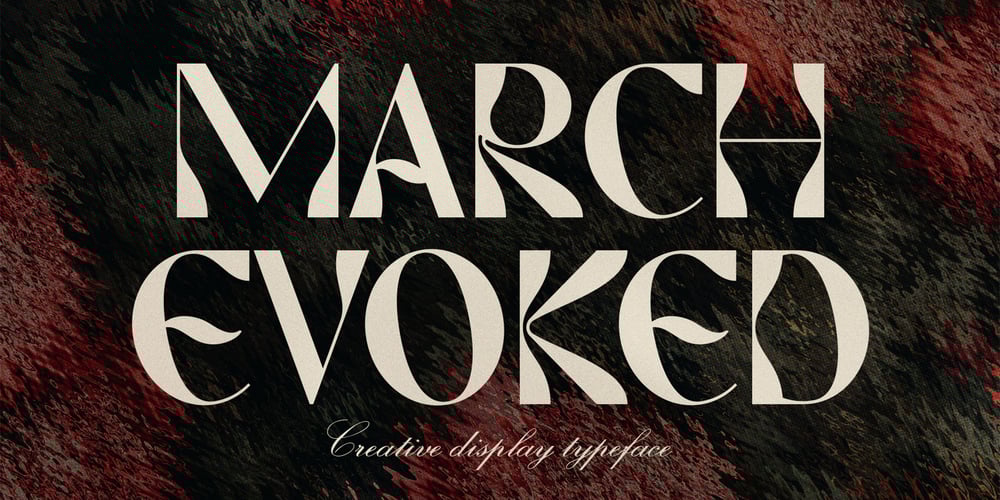
March Evoked
March Evoked font
March Evoked Font Family was designed by SilverStag and published by SilverStag. March Evoked contains 2 styles and family package options. March Evoked is a brand new display font pack that includes regular and outlined version. march Evoked is inspired by an early spring in Spain, with flowers in full bloom all over the capital city – Madrid. With contrast lines & curves it will give your design that chic & modern appeal you are looking for. It is perfect for logos, branding, posters, social media & all other creative projects.I invite you to check out the preview images, and I hope you will be immersed in my vision for this creative typeface that, I am sure, will work for all kinds of interesting projects you might be working on this year.If you end up publishing your designs on Instagram, tag me – https://instagram.com/silverstagco and I will make sure to showcase your design and work to my audience as well!March Evoked – Creaive Display Font Includes: Numerals & punctuation Full language support Would you like to get 5 completely free fonts worth over $75? No tricks, no hidden words, terms or anything. Just subscribe to my newsletter, make sure to check your email to approve the subscription, add me to your contacts so that the emails don’t end up in spam folder and you will get 5 fonts for free. The fonts are packed with alternates, ligatures and some even come with extra goodies.https://view.flodesk.com/pages/63594052b967a943dd6cc528Happy creating everyone!